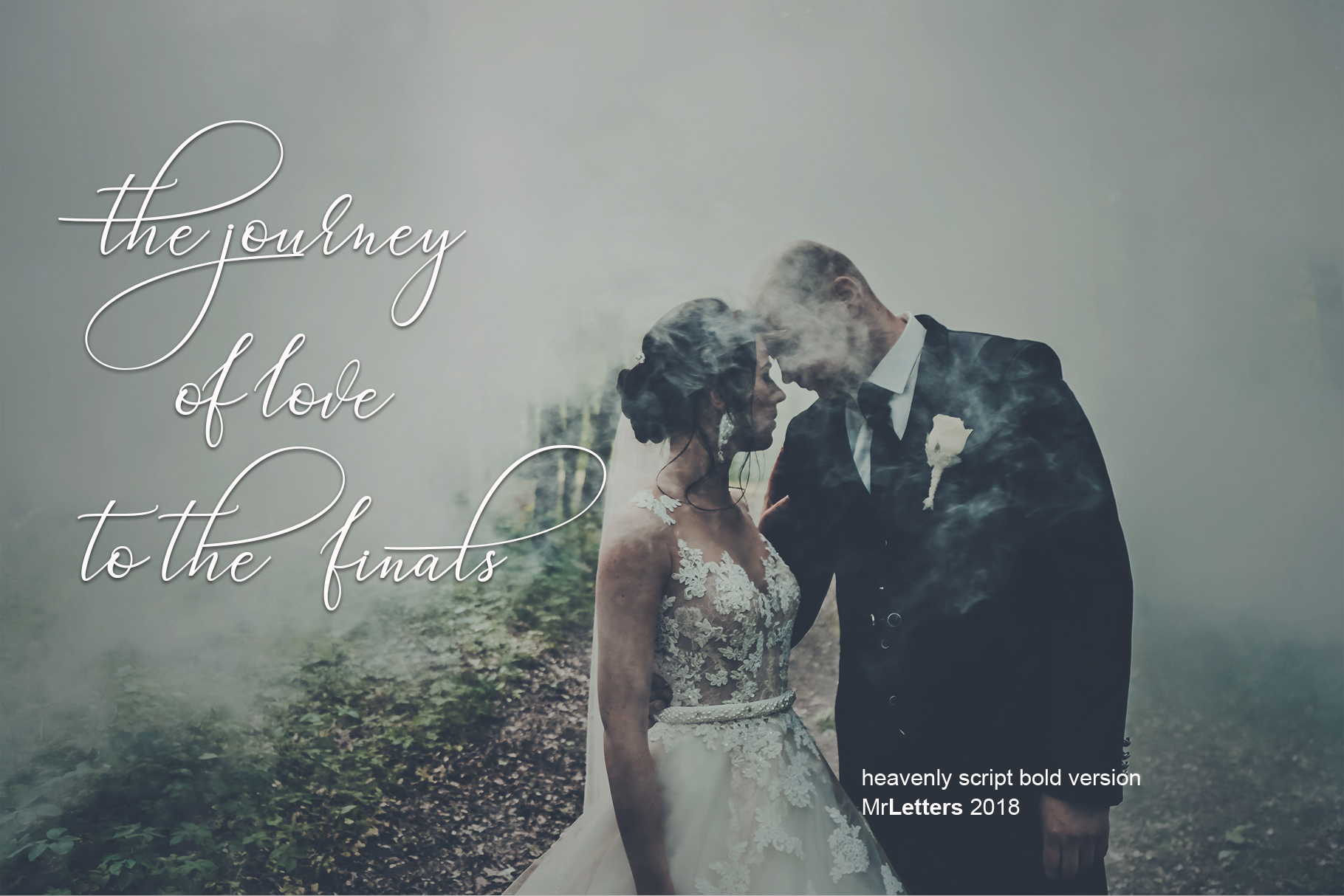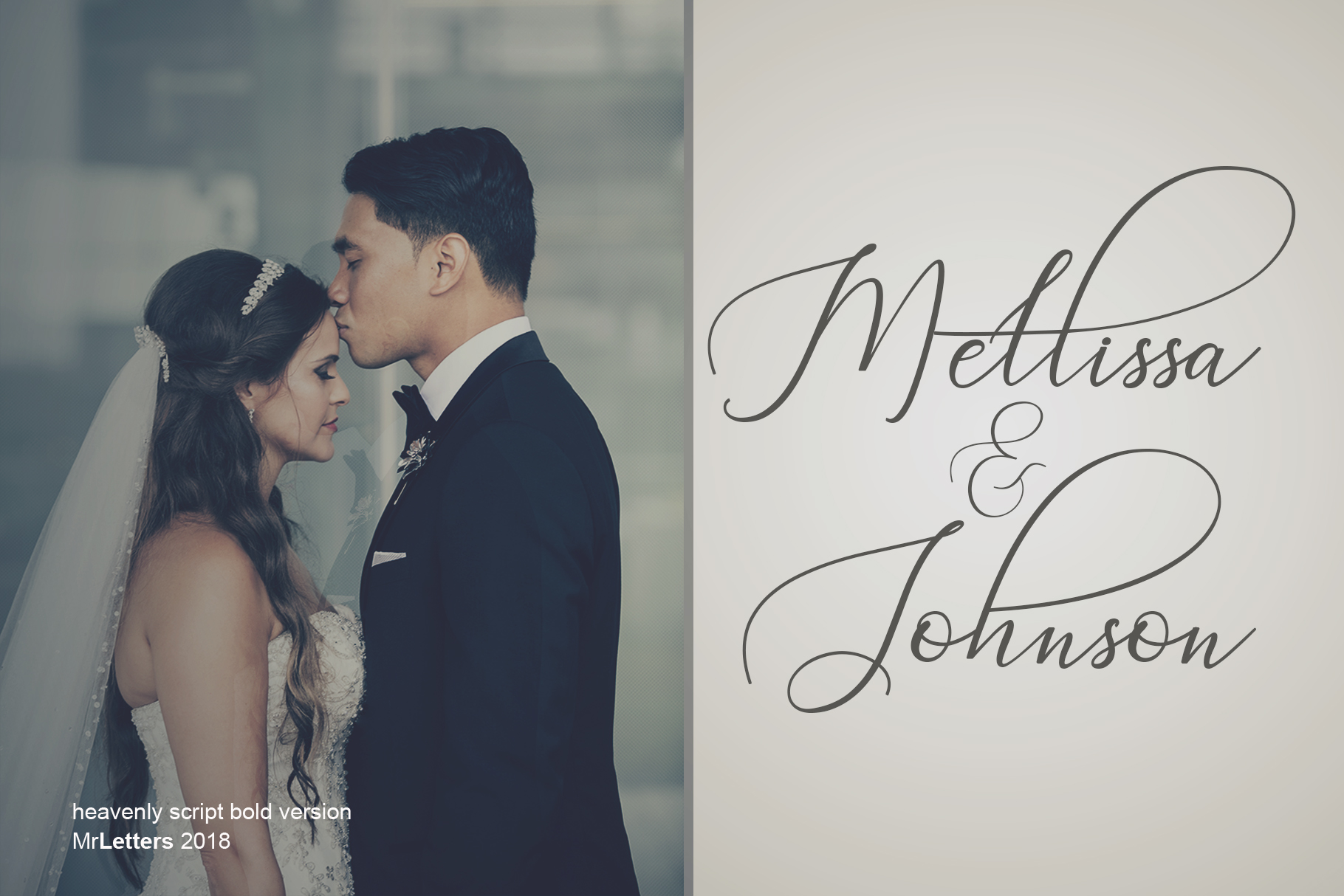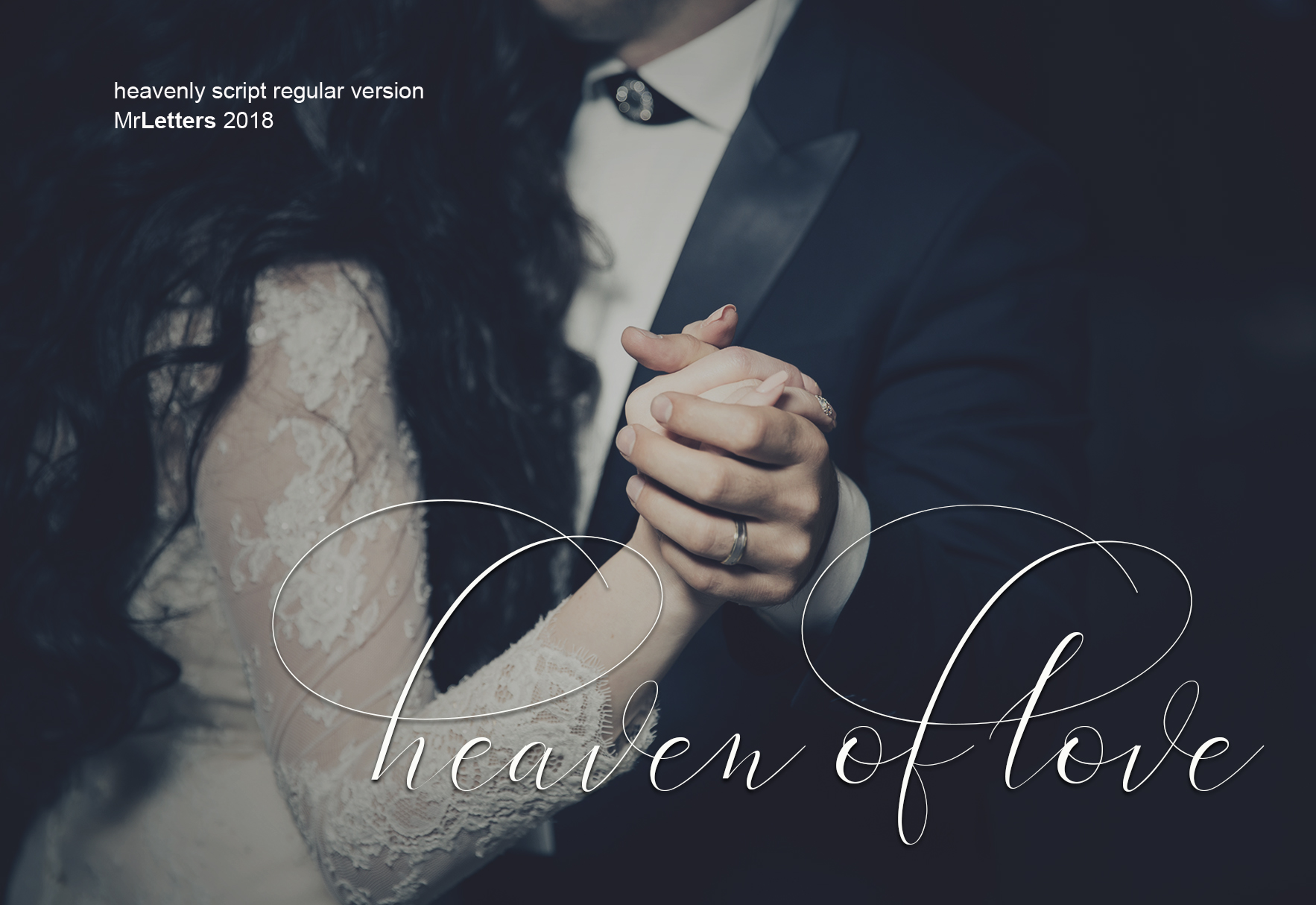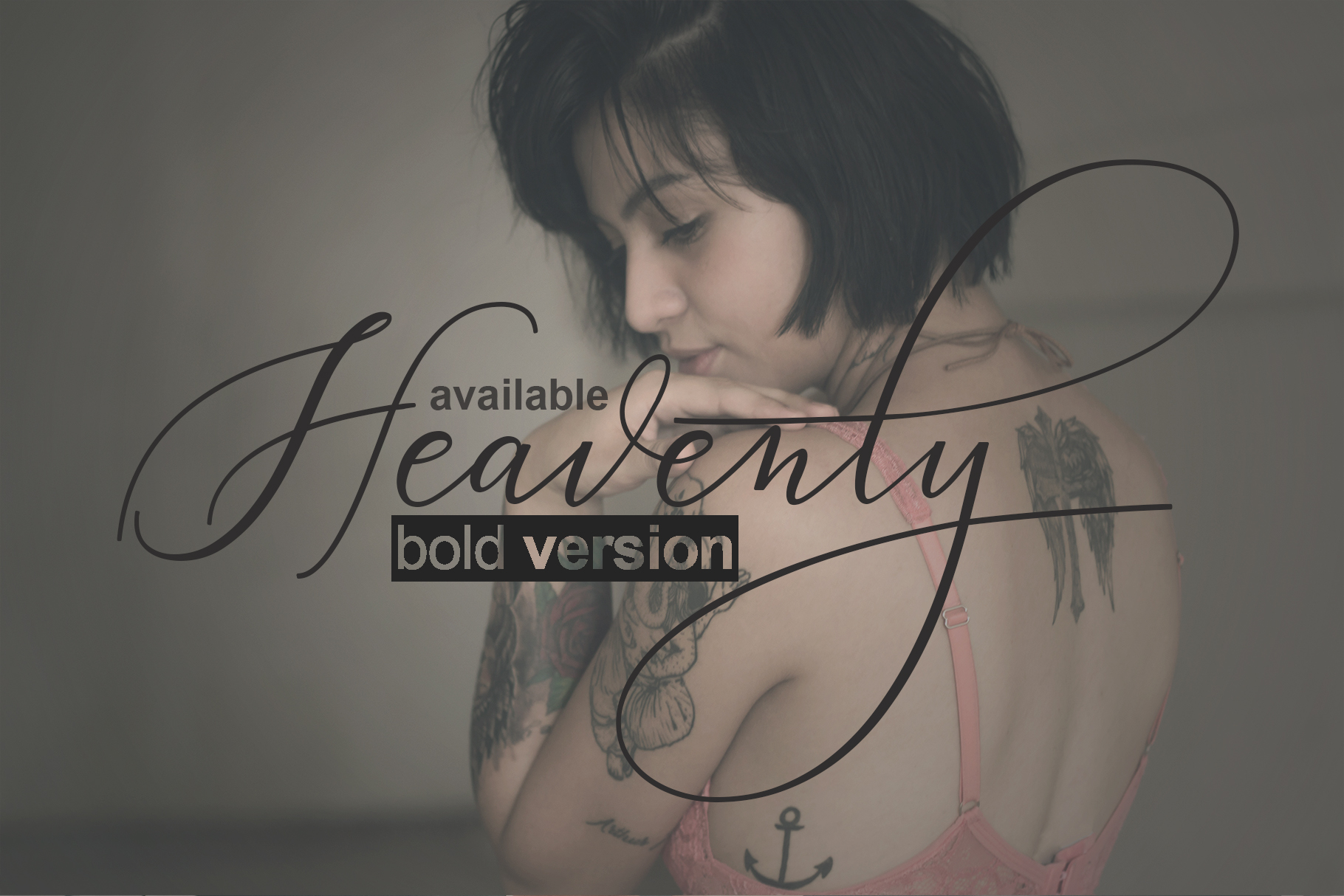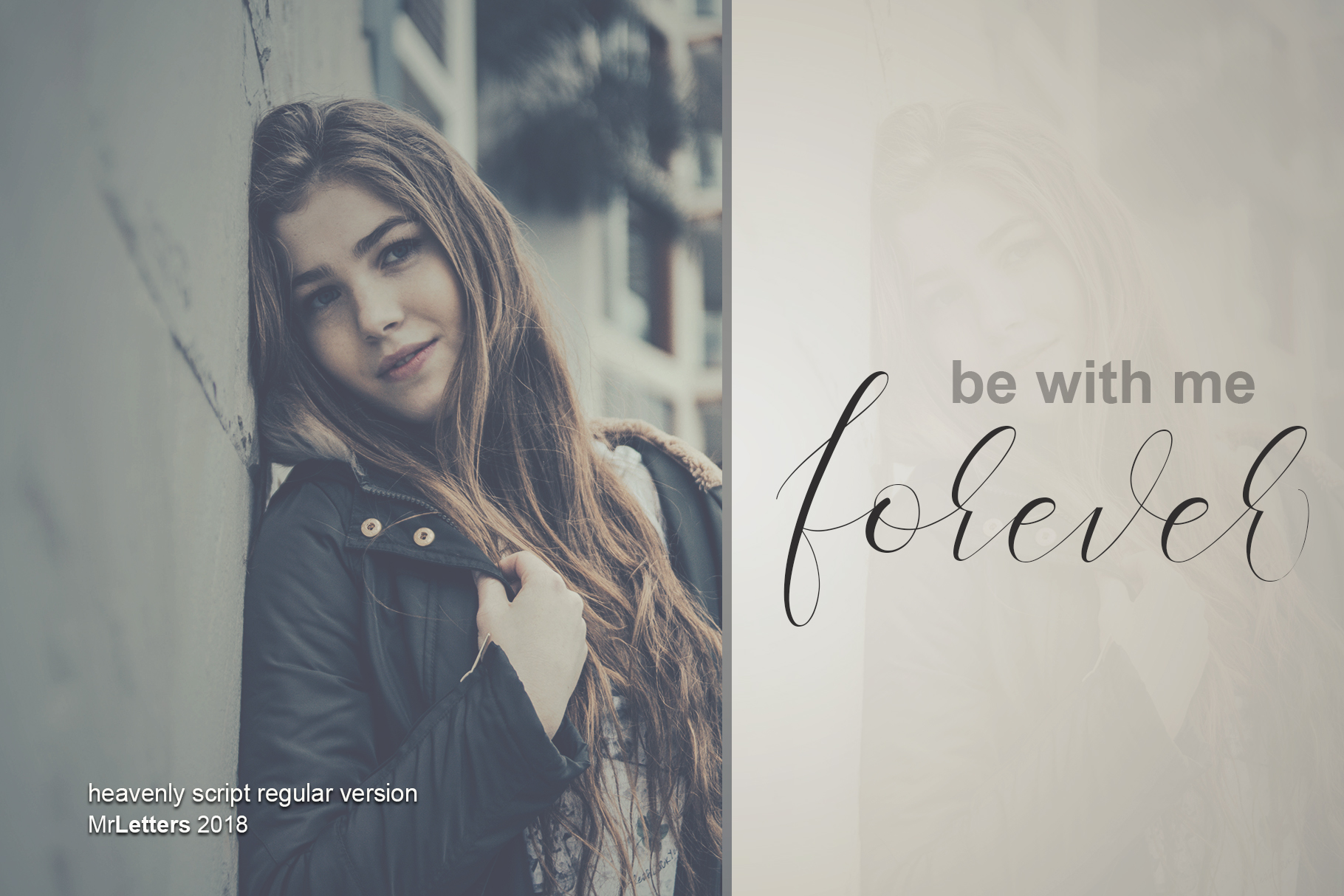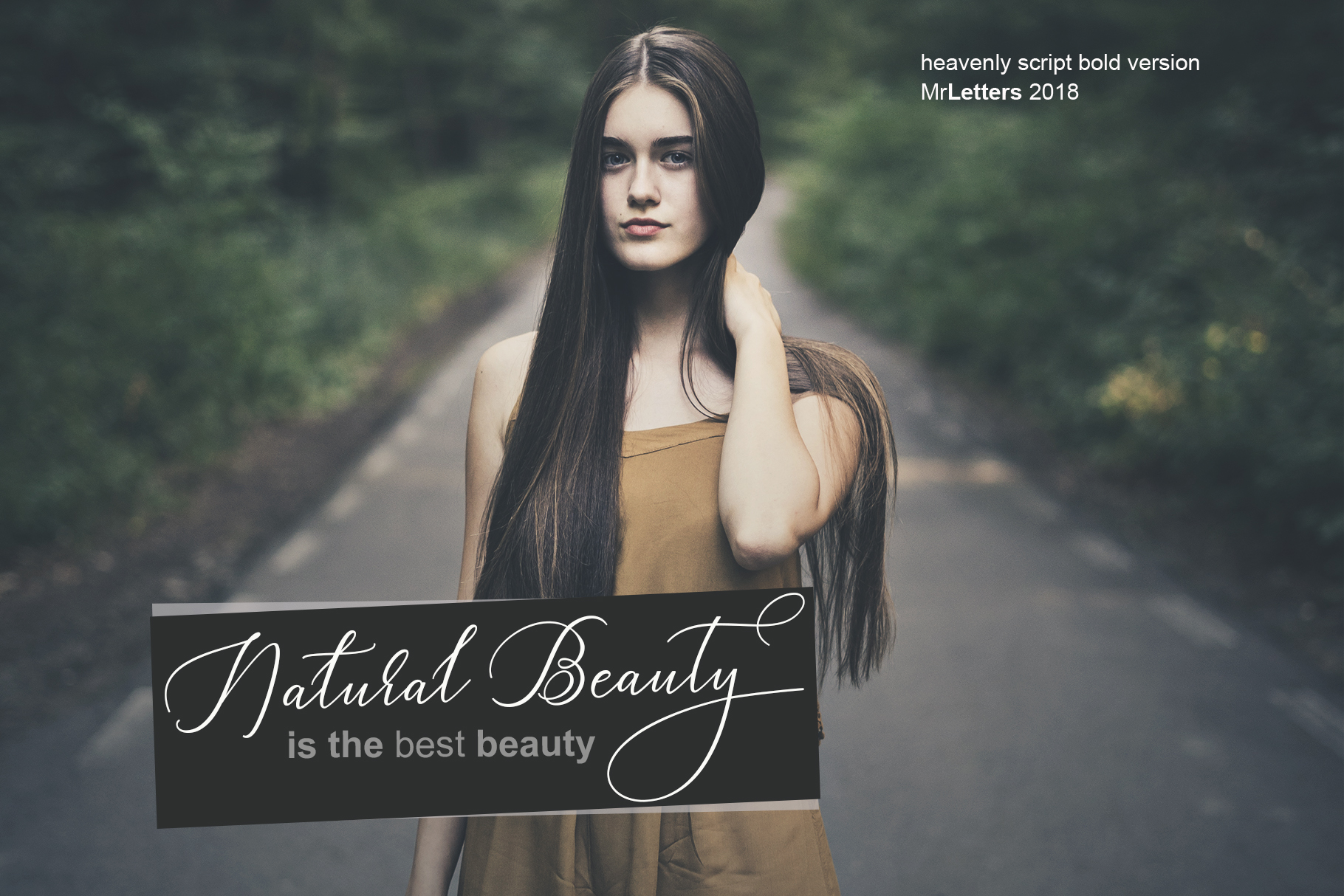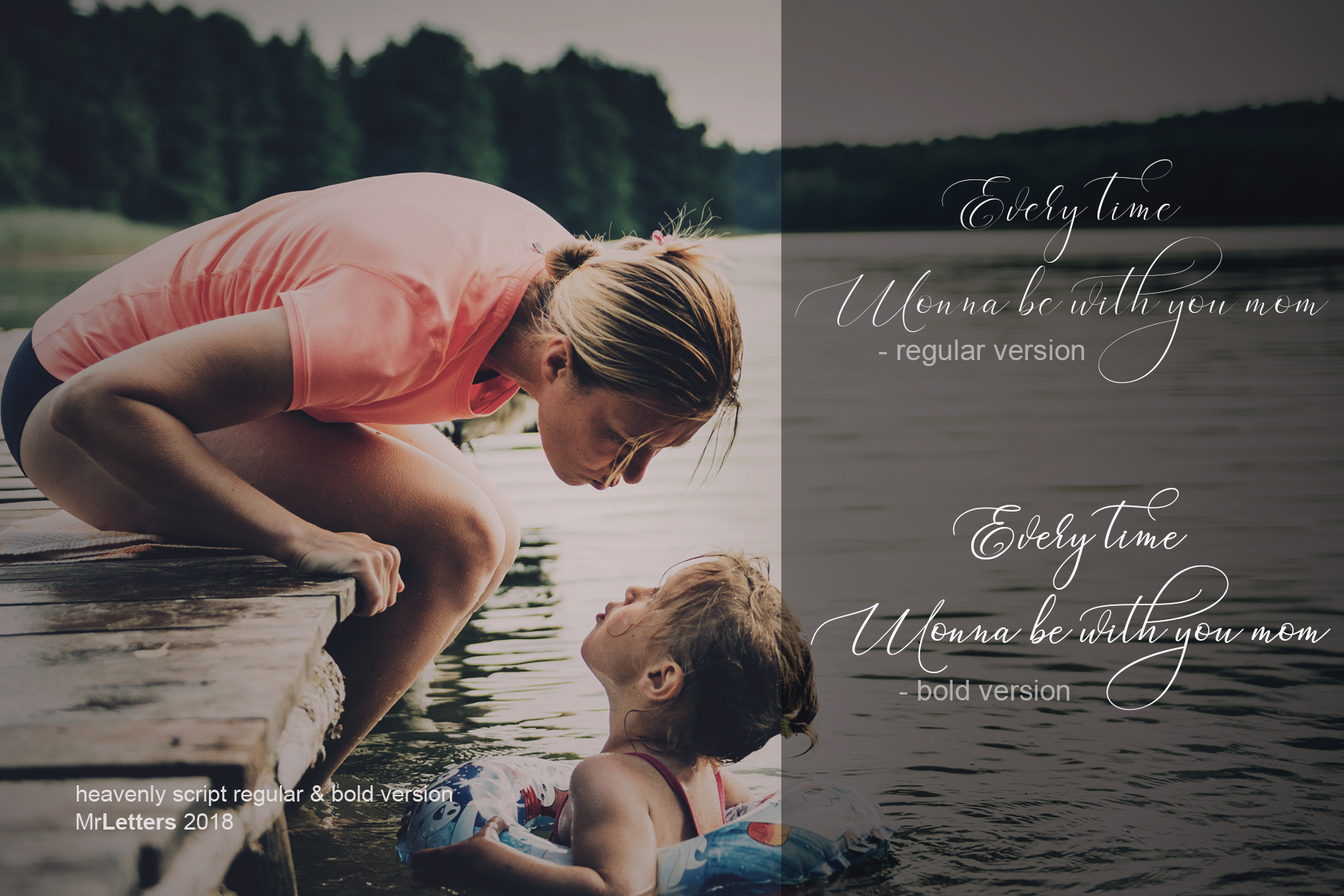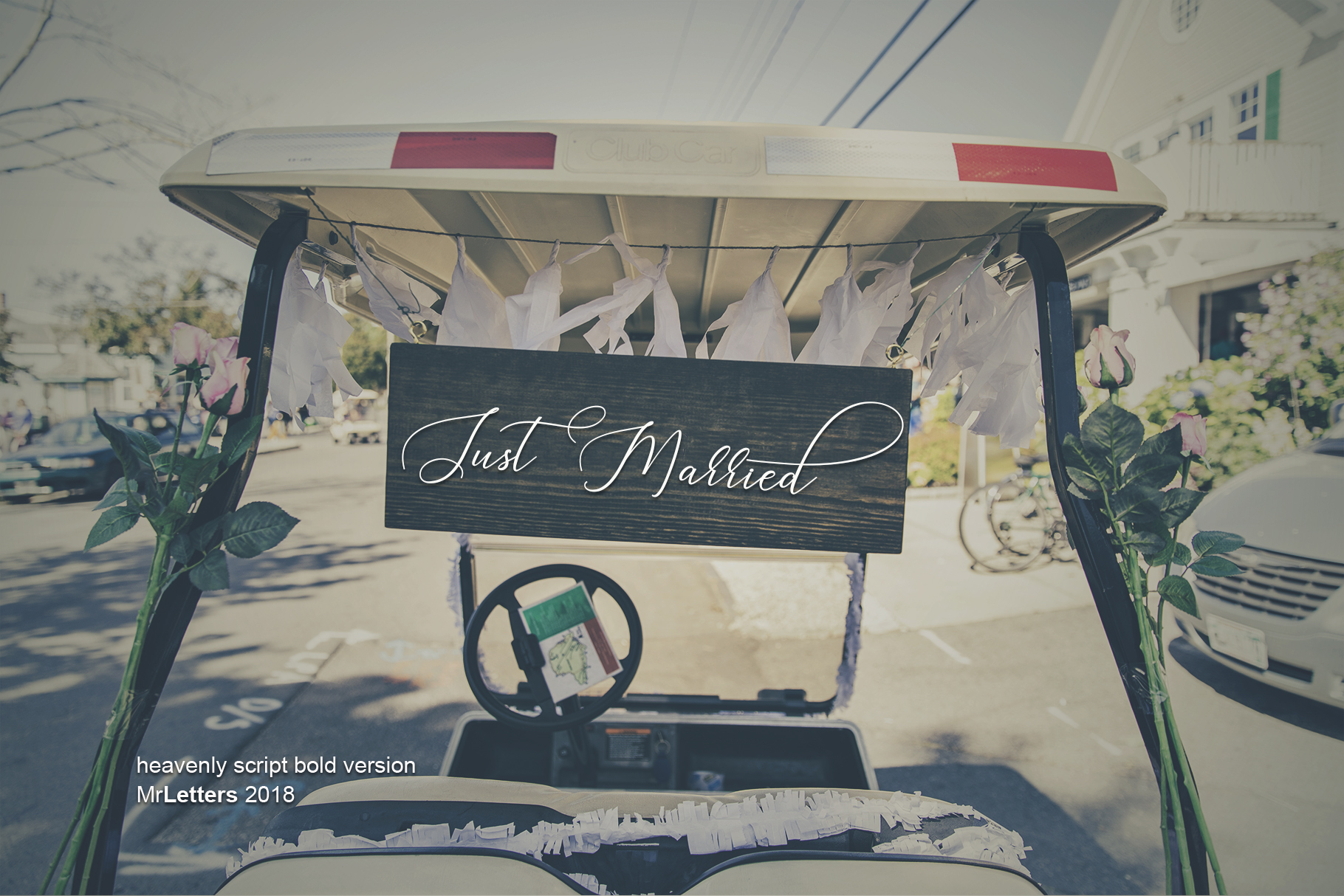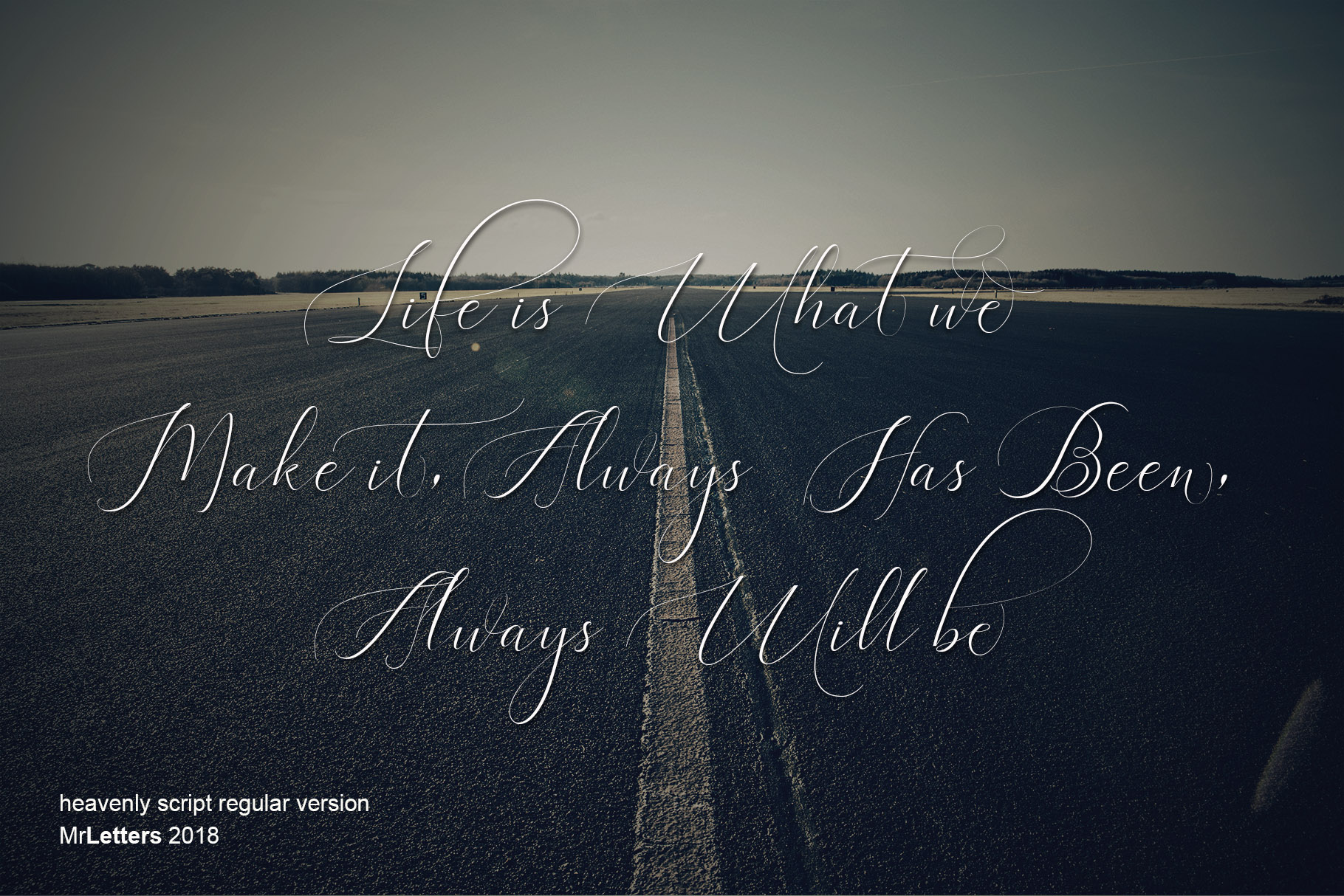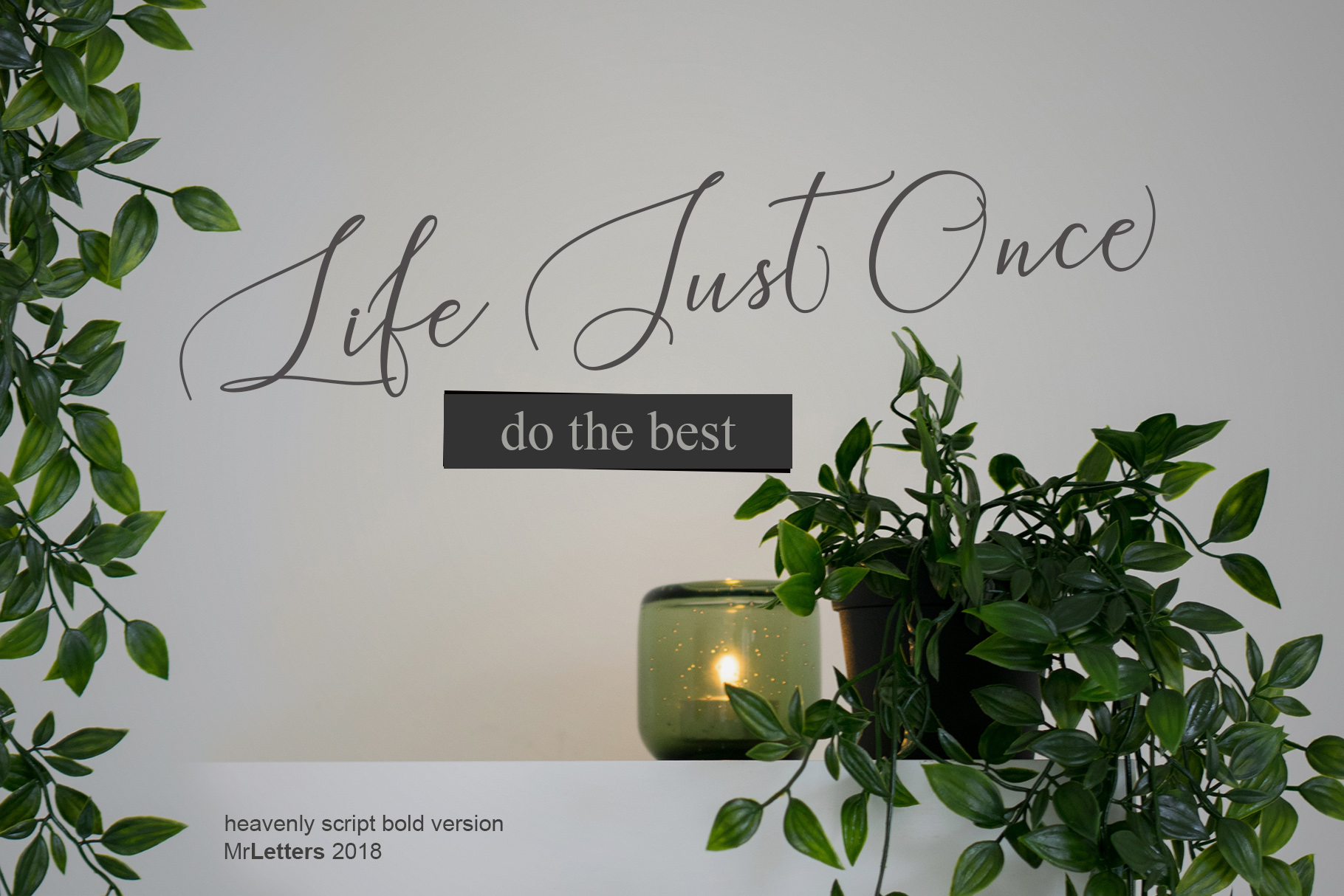
Heavenly Script Font
About Heavenly Script Font
Heavenly Script is a modern calligraphy font that has a sleek and stylish handwritten style. Give your editorials, romantic invitationals or whatever you’re working on a beautiful feel with this phenomenal script font.